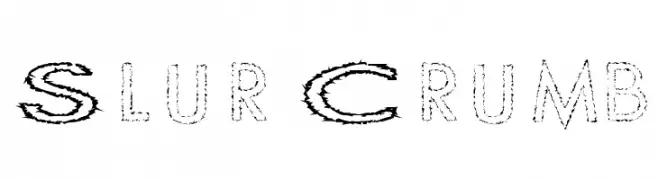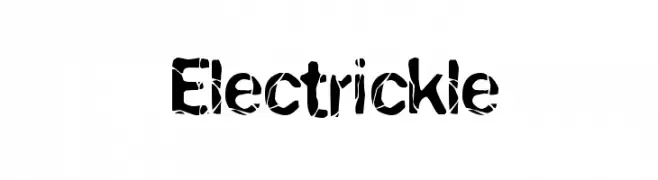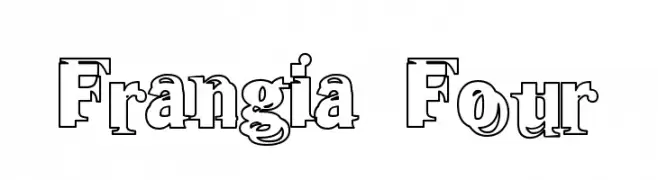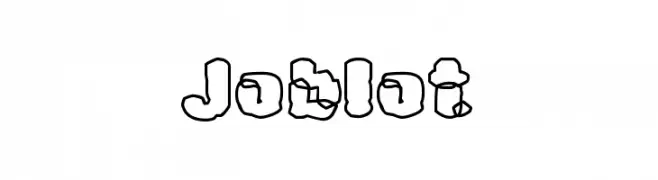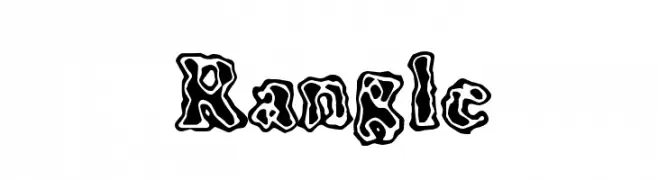
A playful, handwritten font with bold, dynamic strokes and a whimsical aesthetic.
A distressed, hand-drawn font with a vintage and rustic feel.
A bold, electrified font with a distressed, dynamic style.
A bold, decorative font with a strong outline and retro flair.
A playful, hand-drawn font with bold, irregular outlines and a whimsical style.
A bold, decorative font with wavy, hand-drawn outlines.